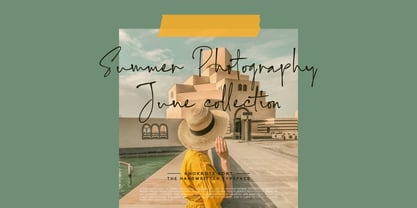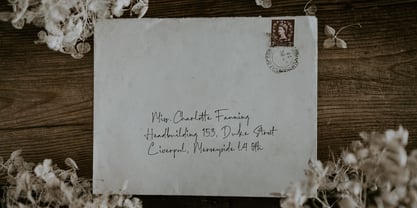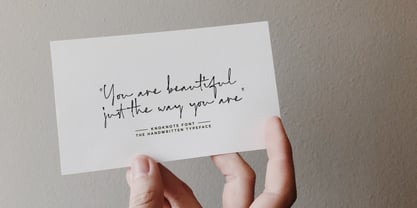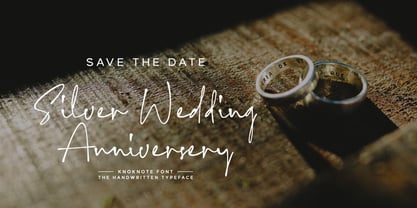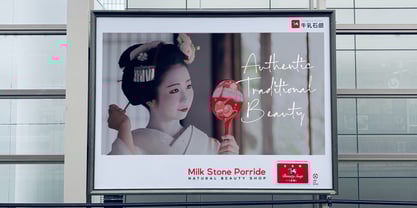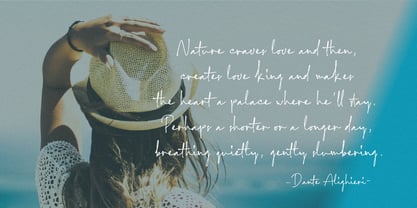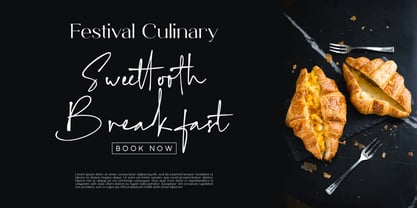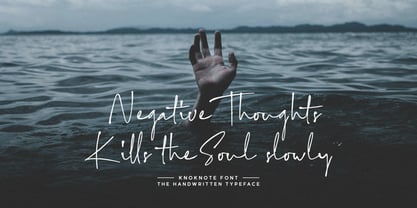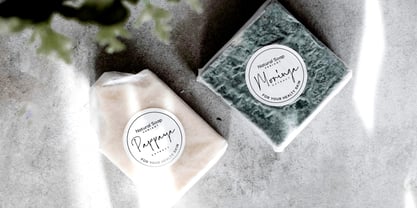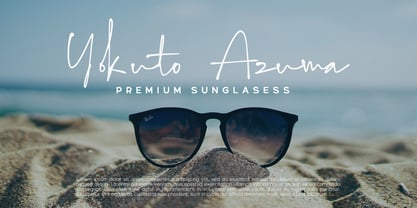
Knoknote
The Knoknote Font Family was designed by Java Pep and published by Java Pep. Knoknote contains 1 styles.
Proudly present Knoknote font, the handwritten typeface. This font is built with OpenType features including alternates, contextual alternates, stylistic alternates, and ligature sets to make the Knoknote font in every writing text look like naturally handwritten. *Knoknote font is perfect for quotes, signatures, branding, logotypes, greeting cards, poems, sticky notes, etc.